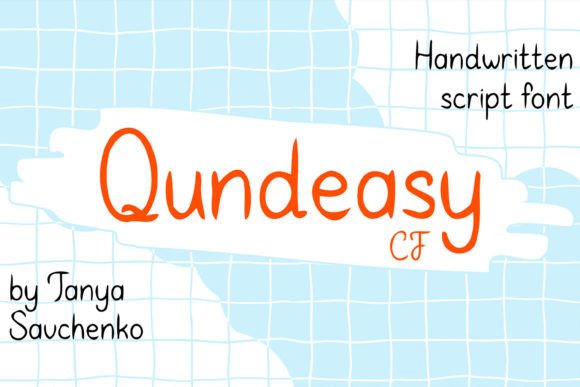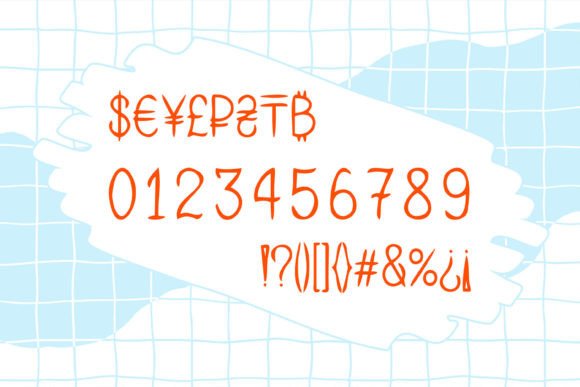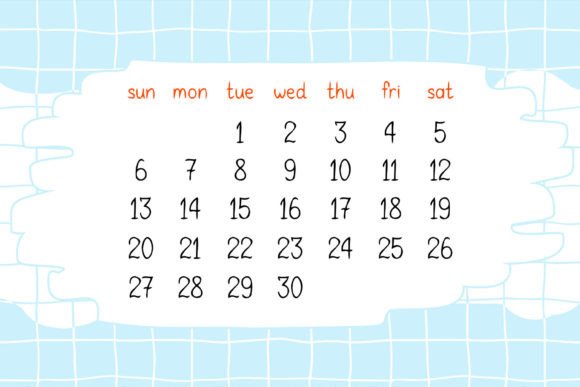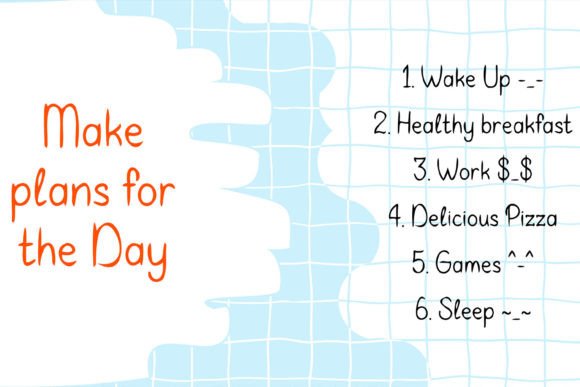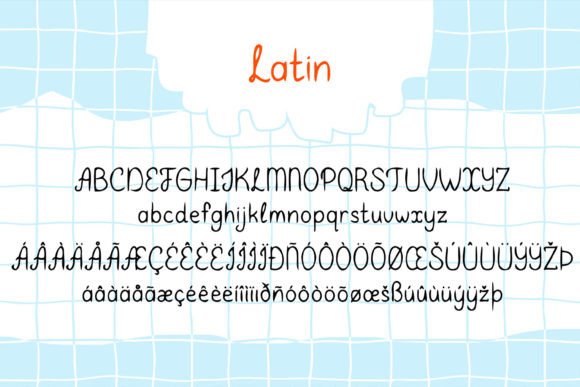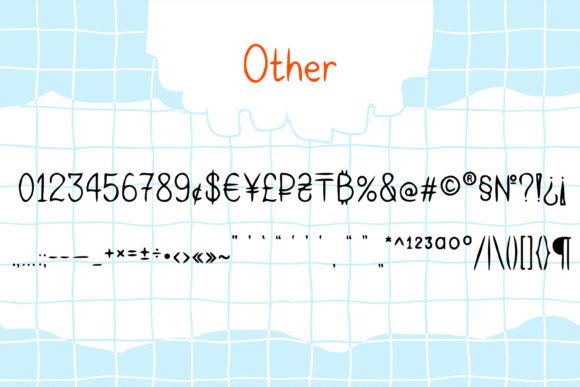
About Qundeasy Cf
Qundeasy is a sloppy and cute handwritten font. First of all, it is suitable for handmade style design.
Сan create interesting logos, posters, banners, social media creatives, postcards and greetings with this font.
The font includes the basic and extended Latin alphabet, numbers, signs, currencies.